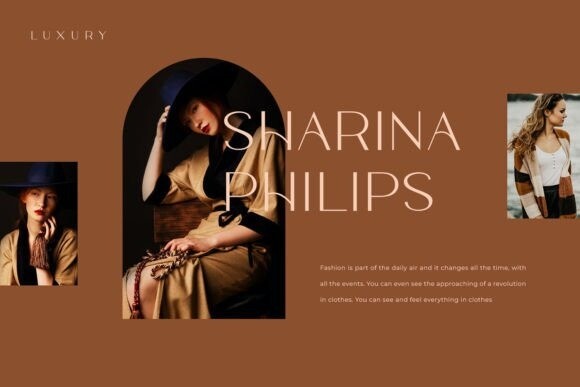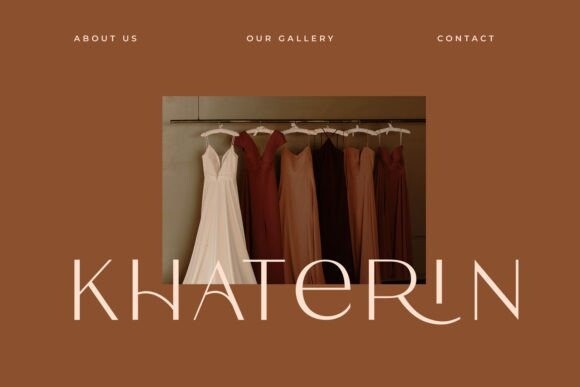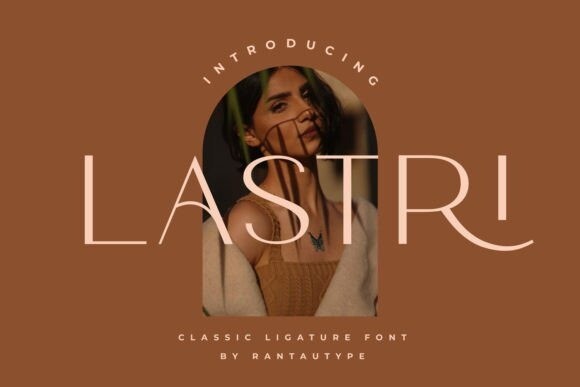
Lastri – Modern San Font
Lastri – Modern San Font, is a feminine, modern sans serif font that strikes the perfect balance between elegance and contemporary style. Its clean lines and subtle curves give it a sleek and sophisticated look, while its versatility makes it suitable for various design projects. Whether used in branding, editorial layouts, or social media graphics, Lastri adds a touch of modern femininity to any composition.